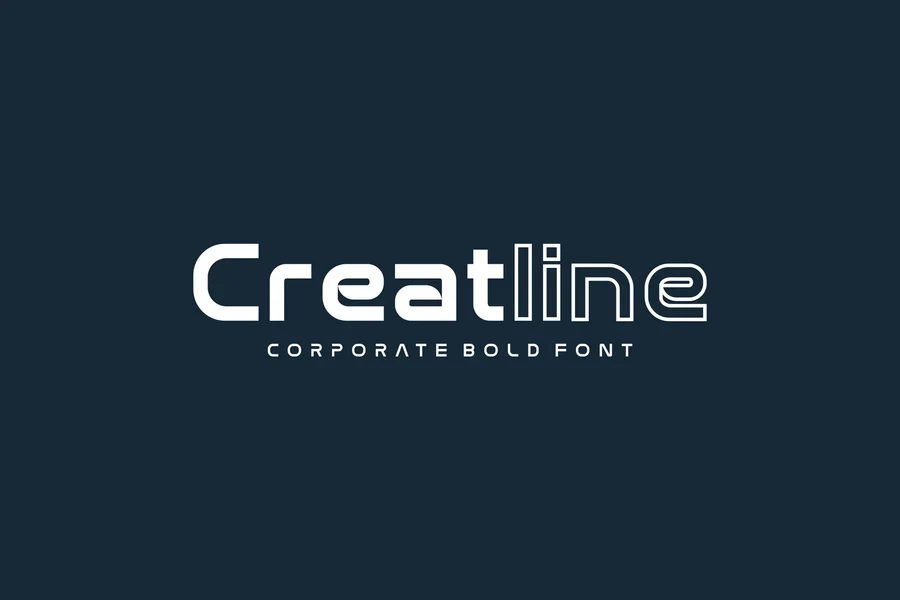
Introducing our new product Creatline Font – Modern Font
Creatline Font- Modern Font is a bold and authentic display font. The font is suitable for any branding project like logo, esport, and many more. outstanding in a wide range of contexts.